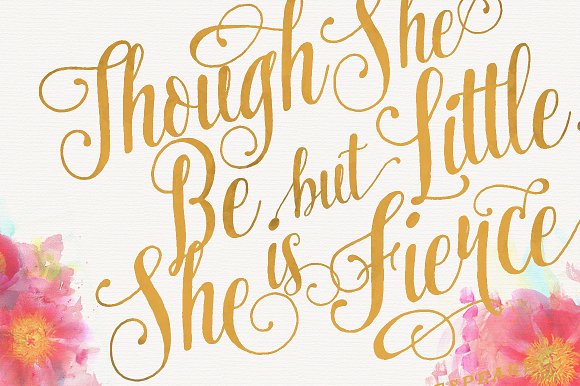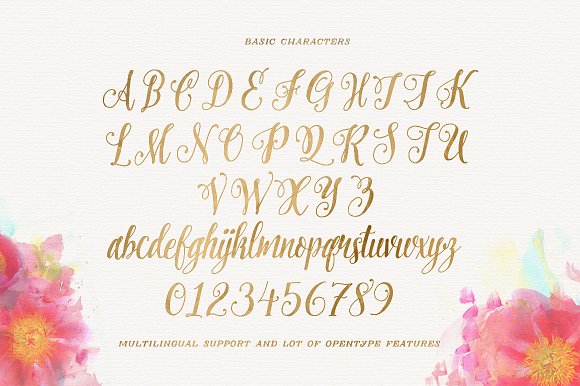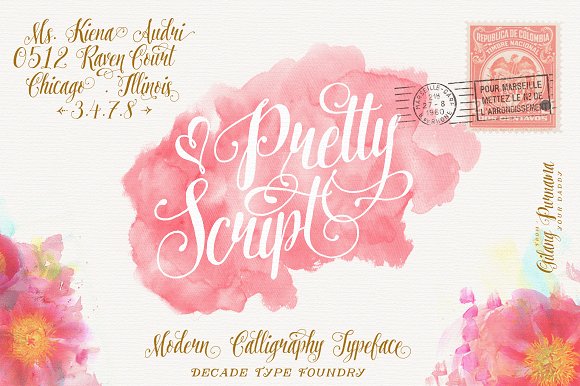
Pretty Script
Pretty Script Font
Pretty is handlettered font. It is an elegant, yet whimsically handwritten calligraphy font that was created with readability in mind. It uses open-type features to assist with letter flow and to give each creation that modern and hand-lettered touch. With over 500 characters, there are many stylistic alternates to choose from, you can write in other languages, and fun swashes to give headings a little something extra. Note: This font works best with open-type friendly applications.